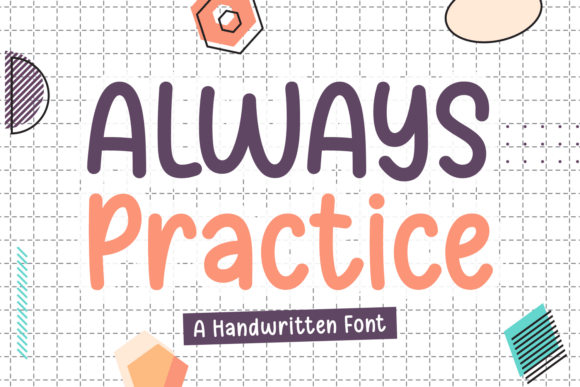
Adding a Personal Touch to Your Designs
Remember that moment when you finally nailed that handwritten signature on a beautiful invitation or a heartfelt quote? The joy of creating something personal and unique is what drives many designers to push their creative boundaries. It’s a moment that can make all the hard work worth it.
For designers looking to infuse their projects with a friendly, casual vibe, Always Practice Font is the perfect solution. This playful handwritten font is designed to add a touch of warmth and personality to any text, making it ideal for invitations, quotes, and other projects that need a relaxed feel. Whether you’re a seasoned designer or just starting out, Always Practice Font is a valuable tool to have in your arsenal.
Always Practice Font Key Features
- Unique Characteristics: The font features a unique blend of modern and vintage elements, with a distinctive flair that sets it apart from other sans-serif fonts.
Always Practice Font Review
Overall, I think Always Practice Font has some great qualities that make it a solid choice for certain projects ✨. The first thing that caught my attention was the unique, handwritten feel that it gives off. It’s perfect for creating a friendly and approachable atmosphere in designs, especially in the realm of branding and advertising.
- Unique, handwritten feel that adds a touch of personality to designs ✨
- Perfect for creating a friendly and approachable atmosphere in branding and advertising
- Wide range of language support, making it suitable for global designs
However, I do have some reservations about this font ⚠️. One of the main limitations is its relatively low legibility at smaller font sizes. This can make it difficult to use for body text or in situations where readability is a top priority.
- Relatively low legibility at smaller font sizes ⚠️
- Lack of italic and bold font styles can limit its versatility
Overall, I think Always Practice Font is a great choice for designers who want to add a touch of personality to their designs, but it may not be the best fit for projects that require high legibility or a wide range of font styles.
Getting the Most Out of Always Practice Font
To get the most out of Always Practice Font, use it consistently throughout your design to create a cohesive look. Pair it with other fonts that complement its unique style. Experiment with different font sizes, colors, and styles to create visual interest.
Always Practice Font is a versatile font that can be used in a variety of contexts, including:
- Logo designs
- Business cards
- Web design
- Editorial and publishing
Alternatives to “Always Practice Font” for Designers